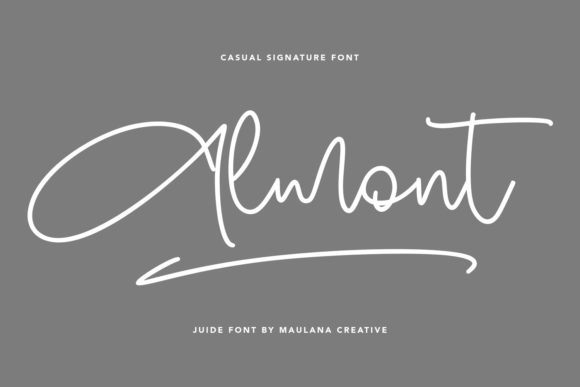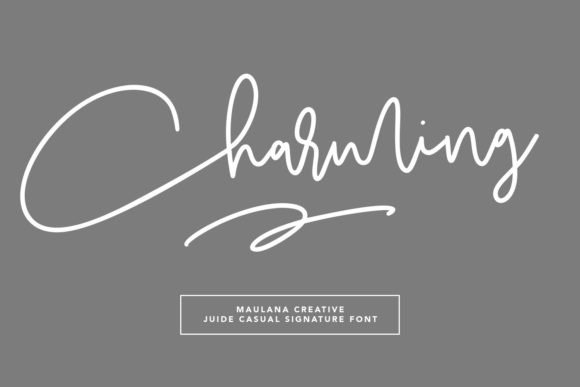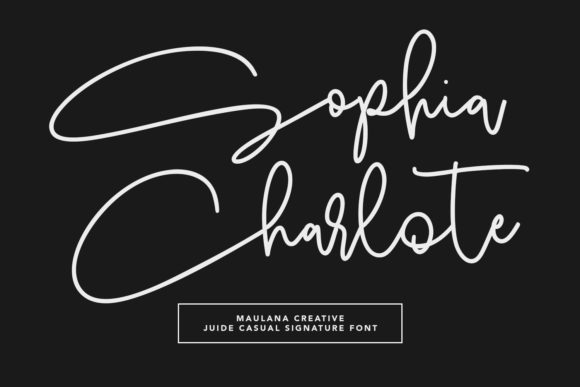
Introduction to Juide Font
Have you ever been in the middle of a creative project, staring at a blank canvas or page, desperately searching for the perfect font to bring your vision to life? It’s that moment of frustration, when the right design element seems just out of reach, that makes discovering a new, high-quality font all the more exciting.
Enter Juide Font, a stunning handwritten font that’s sure to elevate any design. With its clean, thin, and smooth vibe, this versatile font is the perfect addition to any creative project, whether you’re working on branding, product packaging, or even a simple invitation. Its suitability for a wide range of applications makes it an invaluable resource for designers, offering endless possibilities for expression and creativity.
Key Features of Juide Font
- High-quality design: Juide Font is a premium font designed for creative projects, offering a unique and stylish look.
- Transparent background: This font features a transparent background, making it perfect for use on images, videos, and other design elements.
- Design resource: Juide Font is a valuable addition to any designer’s toolkit, offering a unique and creative design element for projects.
Honest Review: Juide Font
One of the standout features of the Juide Font is its transparent background, which makes it incredibly versatile for use in creative projects. I was able to seamlessly integrate it into a design without worrying about any unwanted background elements.
Here are some things that work well with the Juide Font:
- High-quality design: The font is well-crafted and has a professional feel to it.
- Transparent background: This feature is a game-changer for designers working on complex projects.
However, there are some limitations to keep in mind:
- Limited character set: The font may not have as many characters as some other fonts, which could be a problem for designers working on projects that require a wide range of characters.
- Not suitable for all projects: While the font is great for some projects, it may not be the best choice for others due to its unique style.
Overall, I would say that the Juide Font is a solid addition to any designer’s toolkit. While it may have some limitations, its high-quality design and transparent background make it a valuable resource for creative projects.
Juide Font
Getting the Most Out of Juide Font
To get the most out of Juide Font, experiment with different font sizes, colors, and styles. Combine it with other design resources to create a unique and eye-catching design. Use the transparent background feature to add depth and interest to your project.
Juide Font is perfect for creative projects such as logos, posters, and social media graphics. Its high-quality design and transparent background feature make it an ideal resource for designers and non-designers alike.